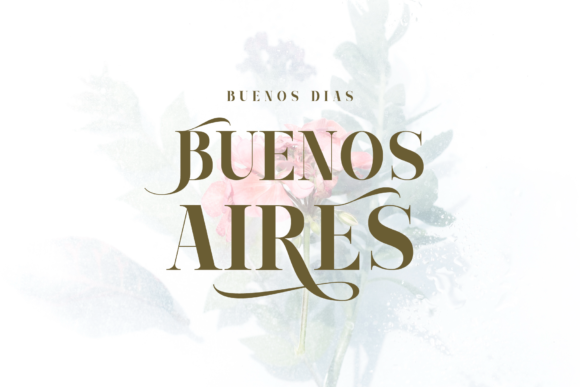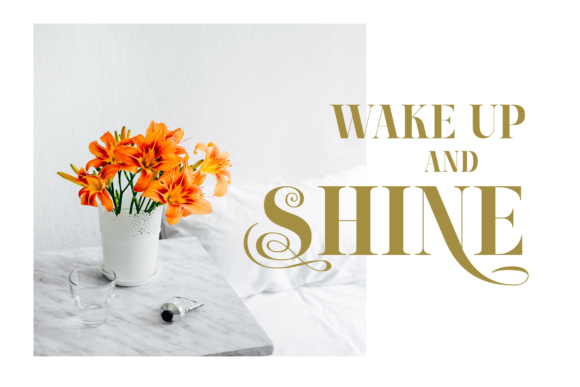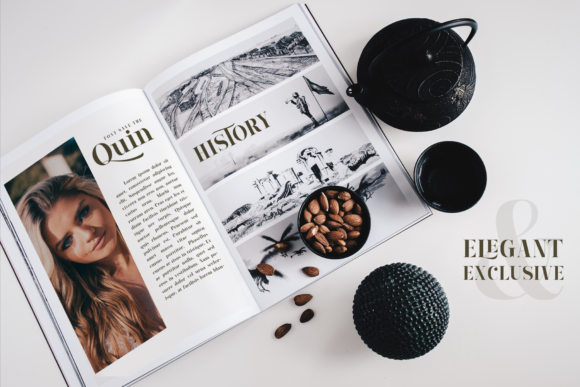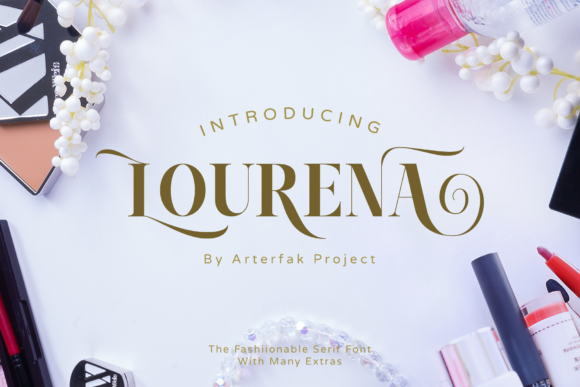
Introduction to Lourena Font
The Lourena is a fashionable serif font.
It’s elegant and modern style will add a luxurious feel to your designs .
Lourena Font offers exceptional quality and versatility, making it a valuable addition to your design toolkit. Whether you’re creating for personal projects or commercial use, Lourena Font delivers professional results.